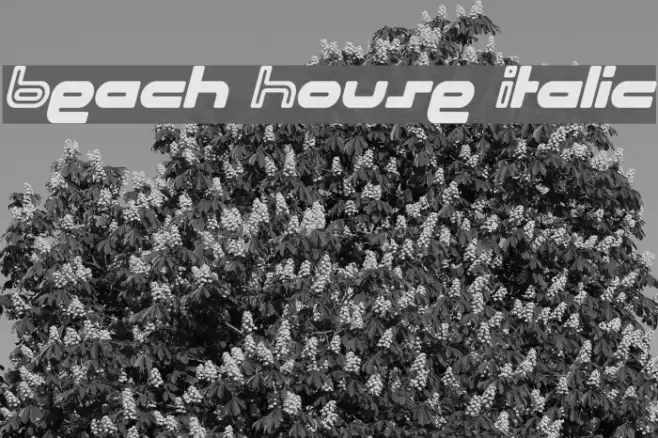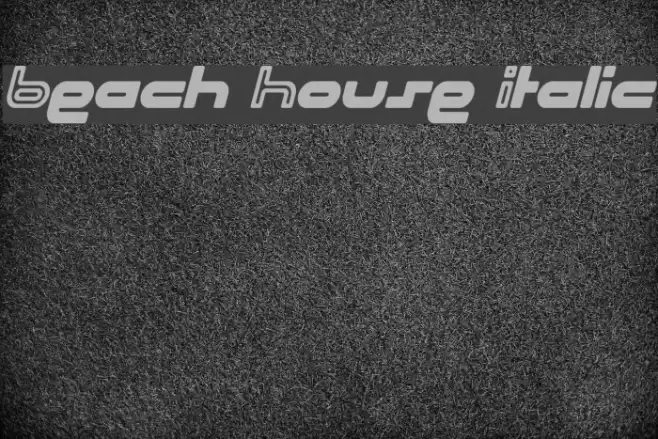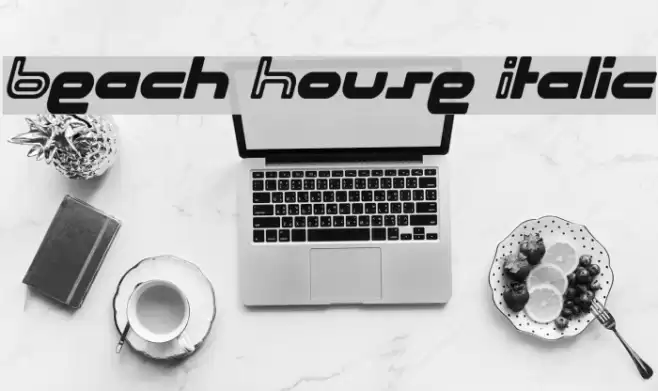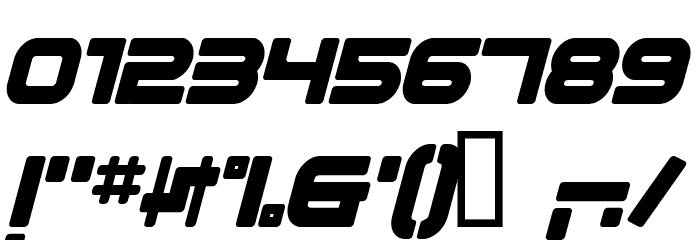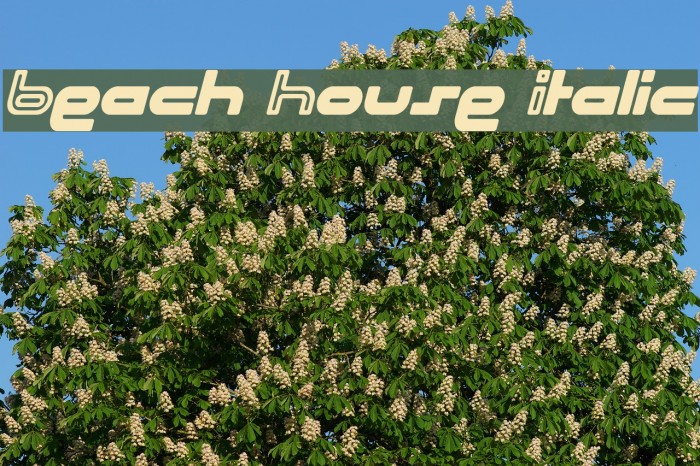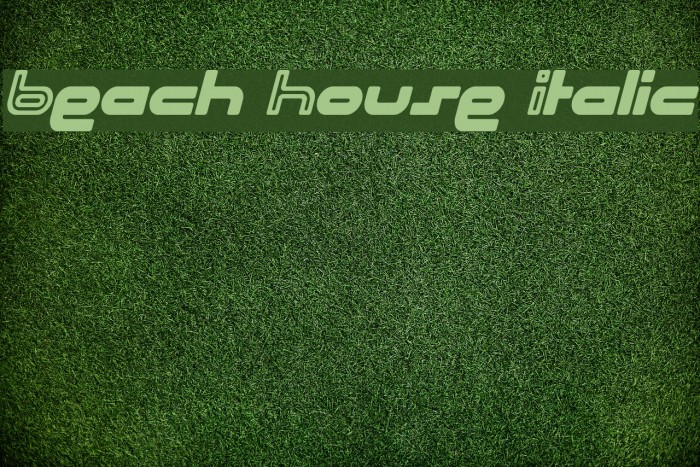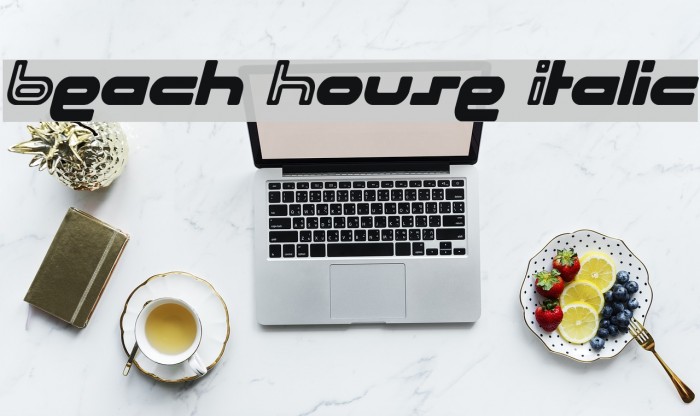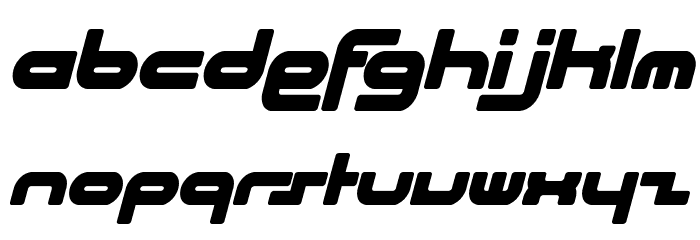
Beach House Italic Font
Beach House Italic Description
This font features a bold and modern design with a distinct italic slant, giving it a dynamic and energetic appearance. The characters are outlined with a thick, consistent stroke that enhances readability while maintaining a stylish look. The uppercase and lowercase letters are well-balanced, with rounded edges that add a touch of softness to the overall design. The numbers and special characters are designed to match the letterforms, ensuring a cohesive appearance across all text. This font's unique style makes it suitable for a variety of creative applications.
A bold, modern italic font with rounded edges and consistent stroke thickness from Futuristic fonts.
- Proposed Projects: Ideal for branding, posters, and digital media where a modern and dynamic look is desired.